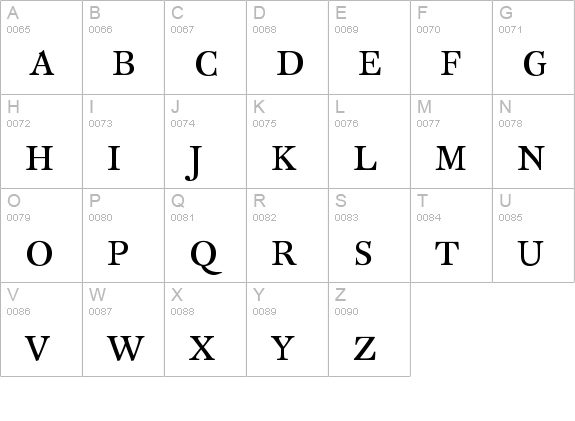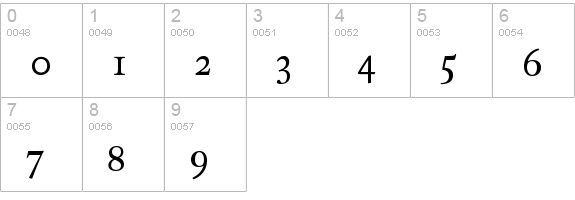
CliffordNine-Roman is a classic and elegant serif font that exudes sophistication and timelessness. Its clean lines and distinctive serifs make it perfect for a wide range of design projects, from branding to editorial design. With its balanced letterforms and excellent readability, CliffordNine-Roman is sure to elevate any design it is used in. Best of all, CliffordNine-Roman is available for free download at FontsMarket.com. This means that you can add this stunning font to your collection without any cost, making it a fantastic option for both personal and commercial projects. Don't miss out on the opportunity to enhance your designs with the beauty and versatility of CliffordNine-Roman font – download it today and start creating stunning typographic compositions!